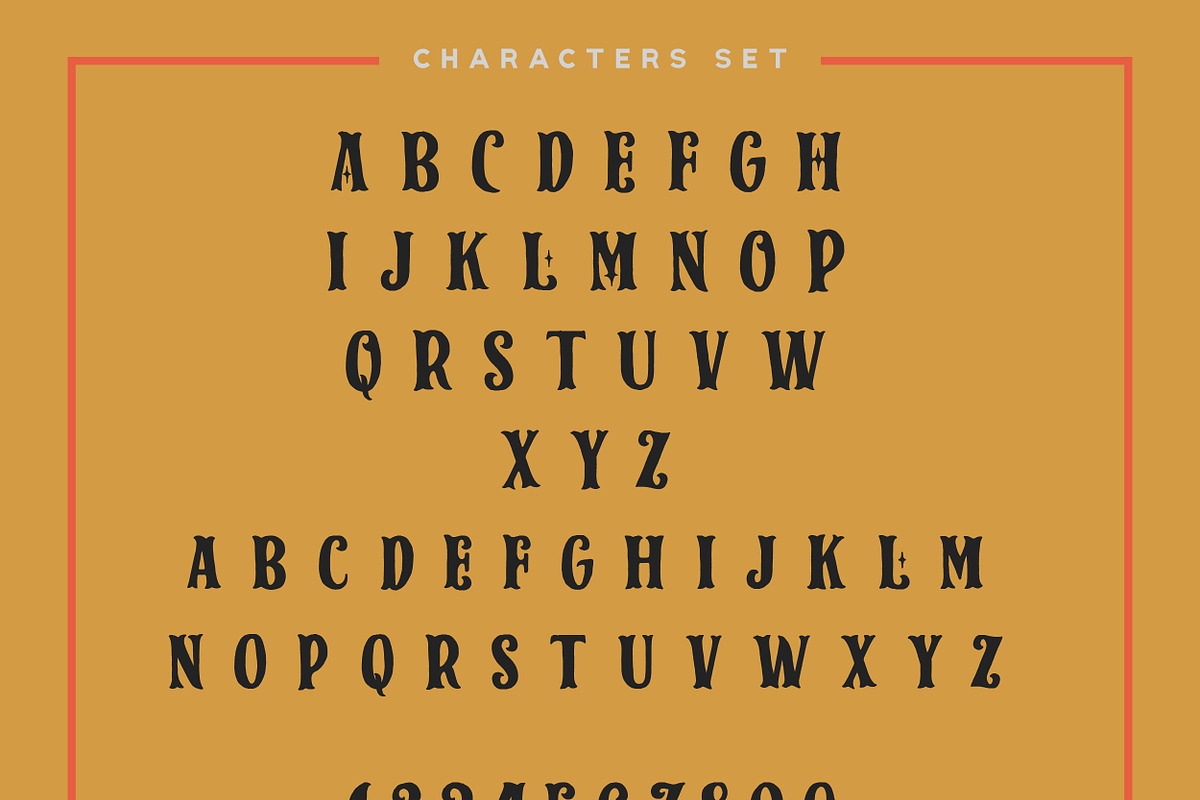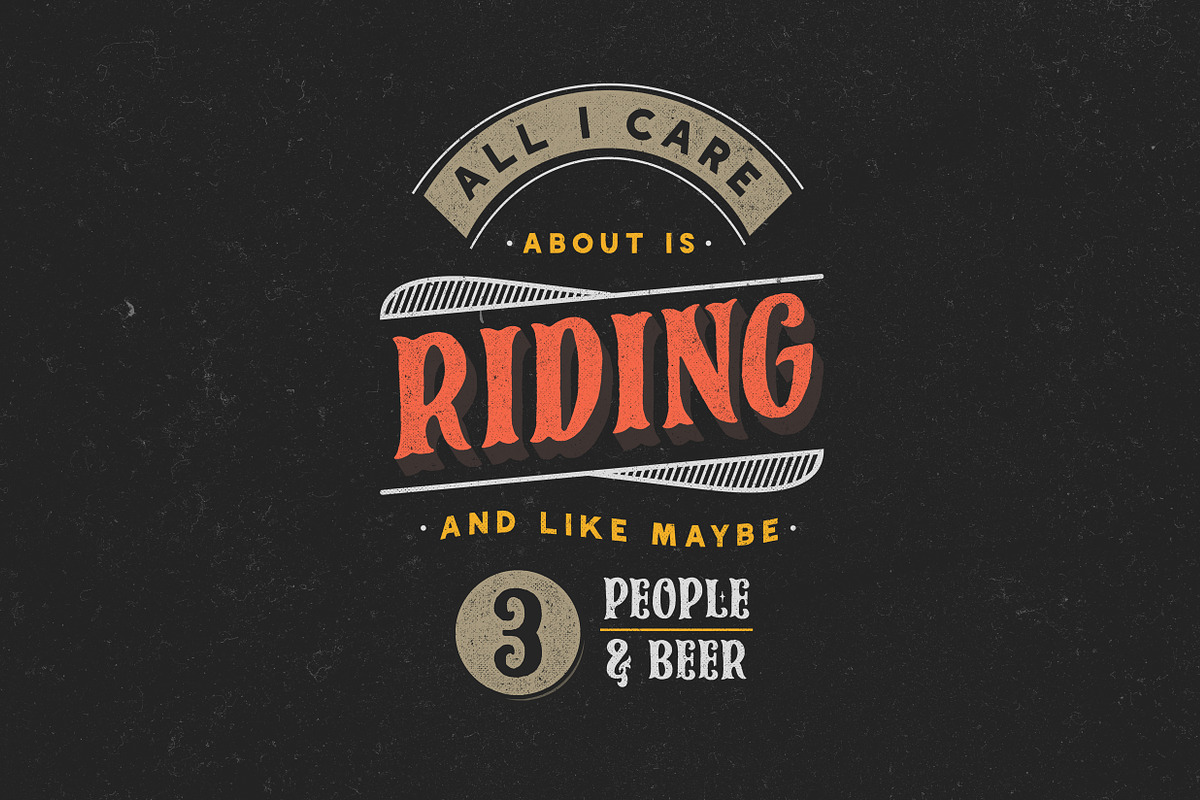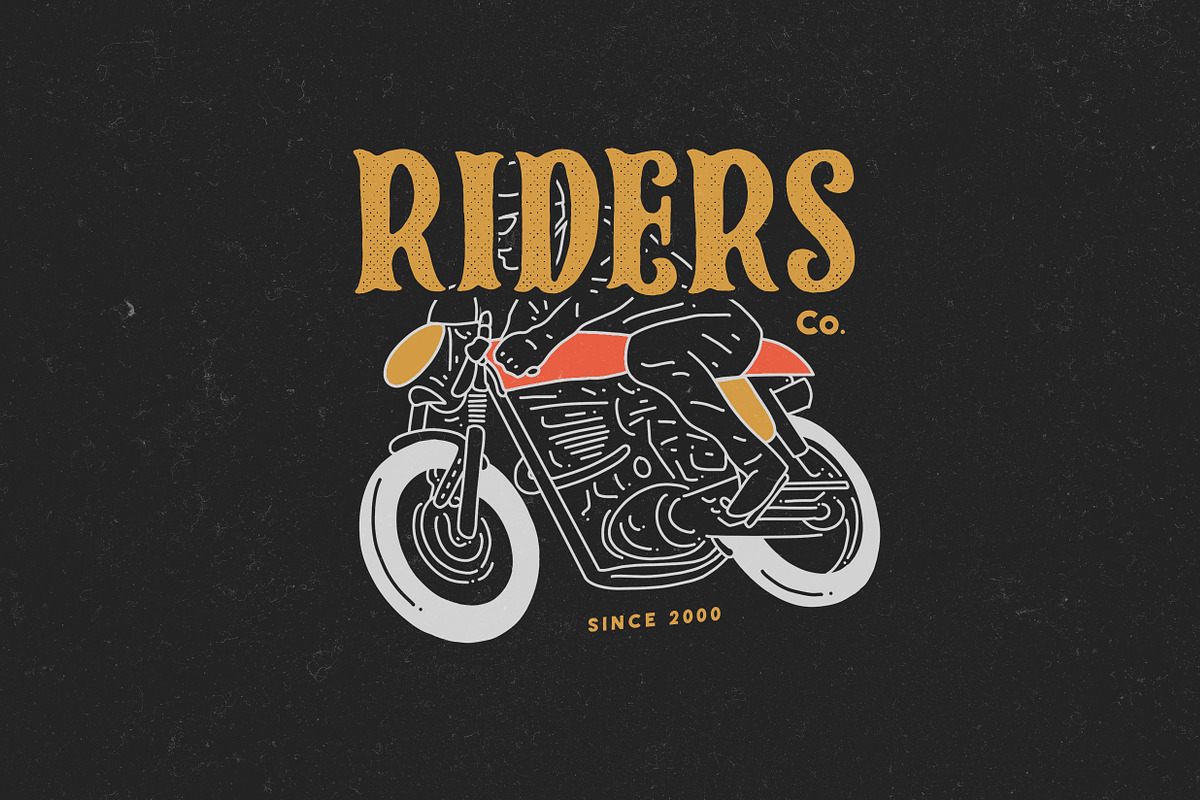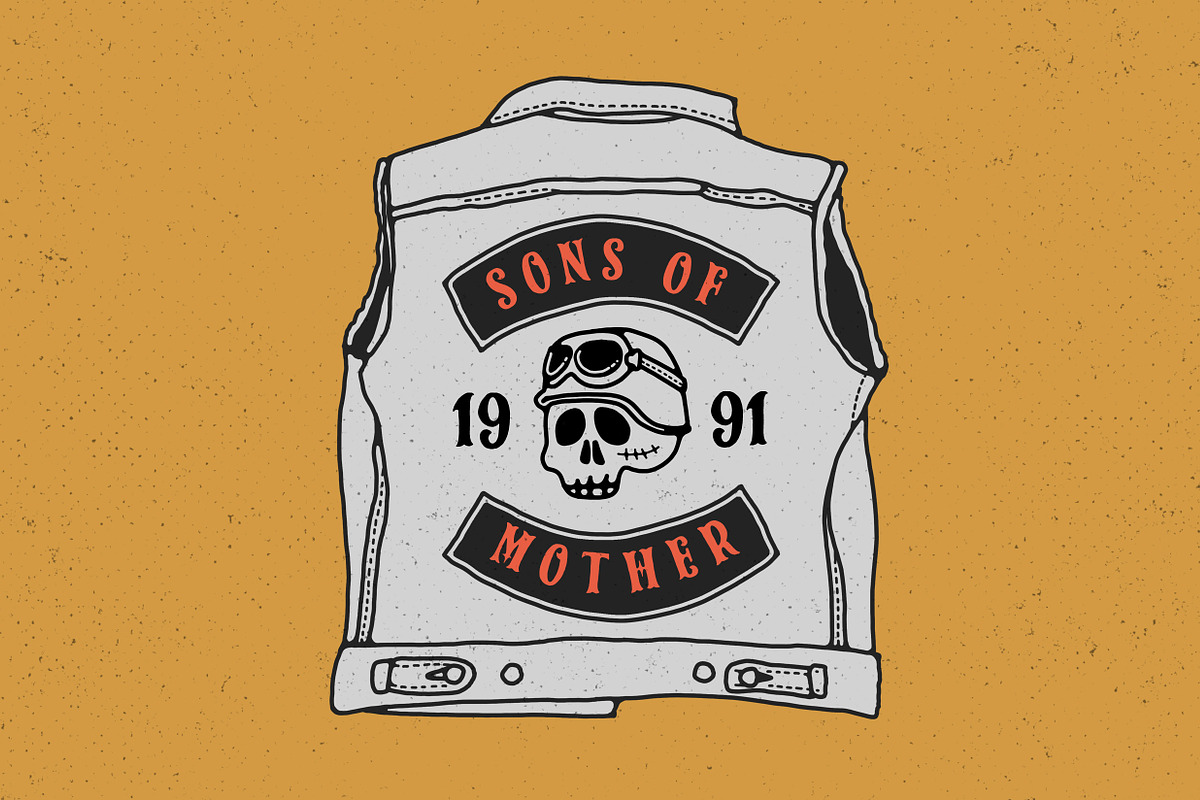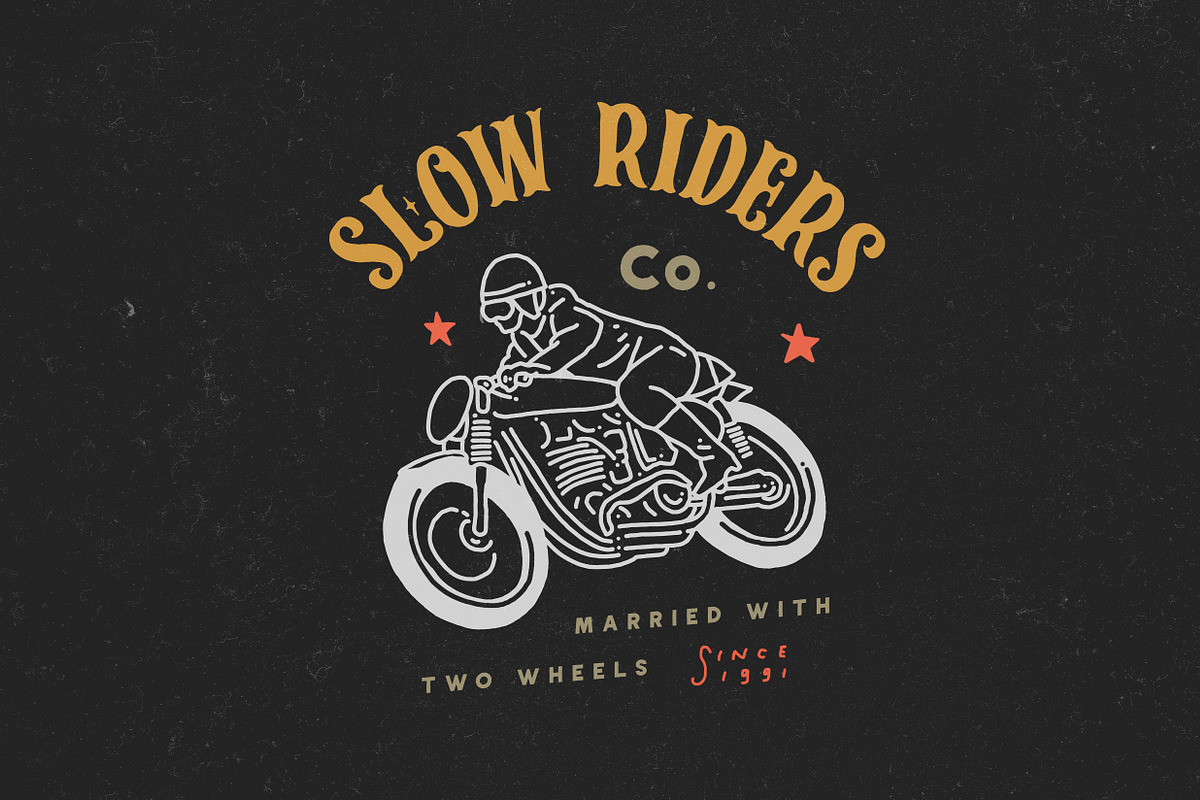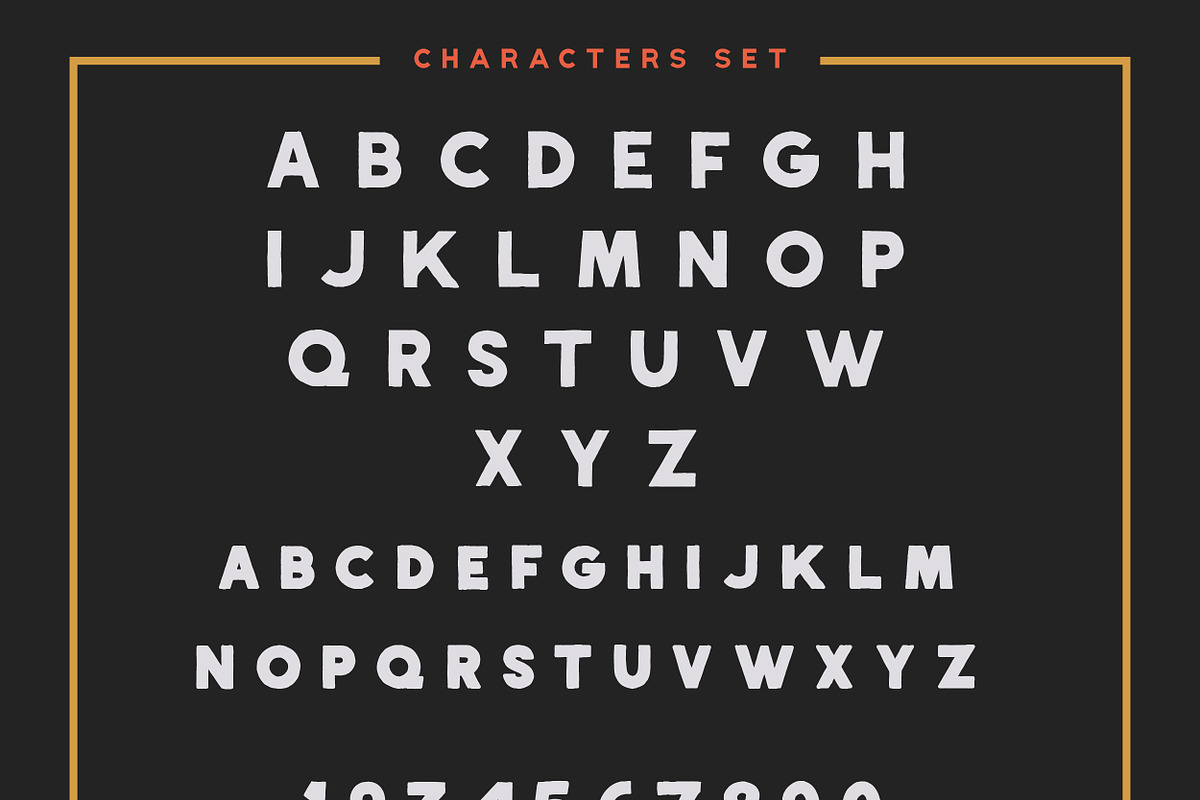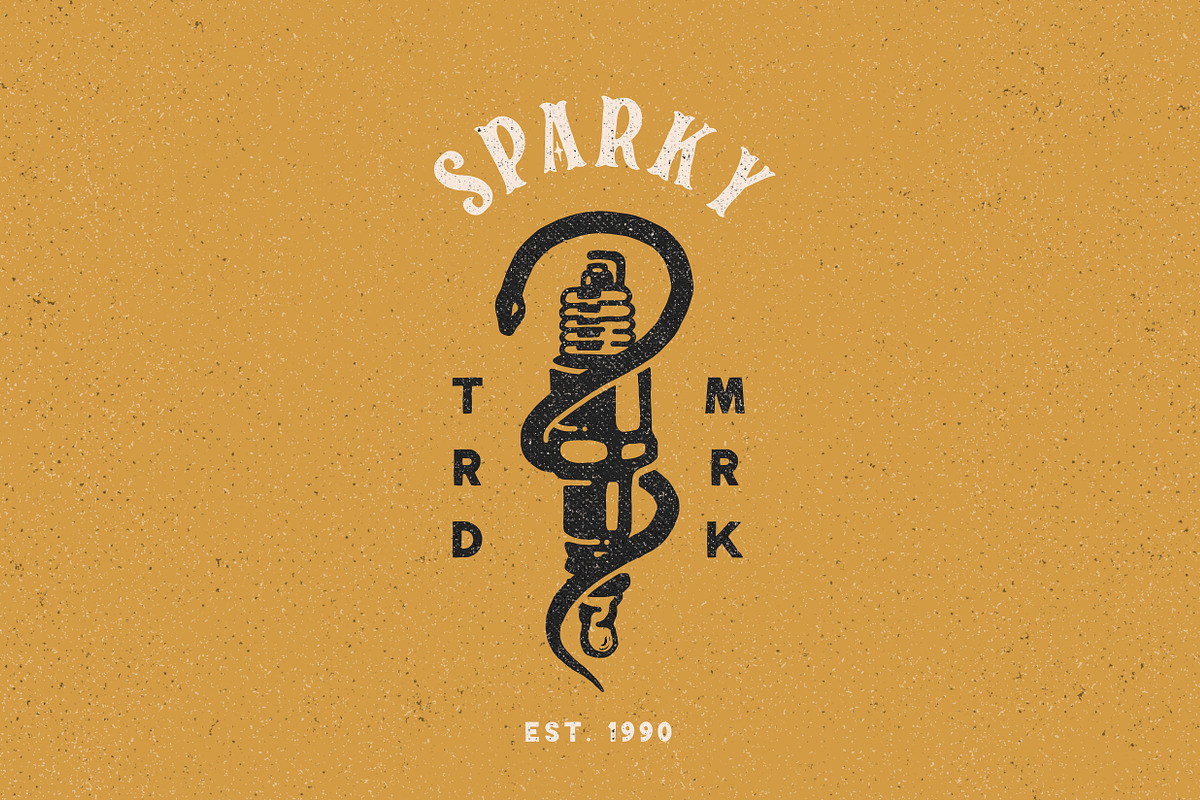
Sparkplugs Biker Rebel Font
Start from my love to vintage motorcycle culture, i am really glad living in this era when vintage motorcycle is now being such a lifestyle. People can express their self through the motorcycle, completed with the fashion and style itself to make their characters and personal branding appear stronger. It can open the new social circle, the community, to those who have the same passion to it.
Based on that situation, i try to contribute to the scene with making a typeface that brings the personality of it. So please welcome, Sparkplugs. A vintage biker style font with the strong serif style and bold body. Comes up with the sans-serif too, just in case you need a pair. Handcrafted carefully for your vintage branding, rebel fashion stuff, clothing brand, as long as they're on it, get ready to rockin' all the way!
Spark Plug Serif : A serif typeface with spurs style and bold characters on it, perfect for your poster display or a header needs in urban design.
Spark Plug Sans : A sans serif typeface to paired with the serif one, it will be great as a sub-header with Spark Plug Serif as the header one.